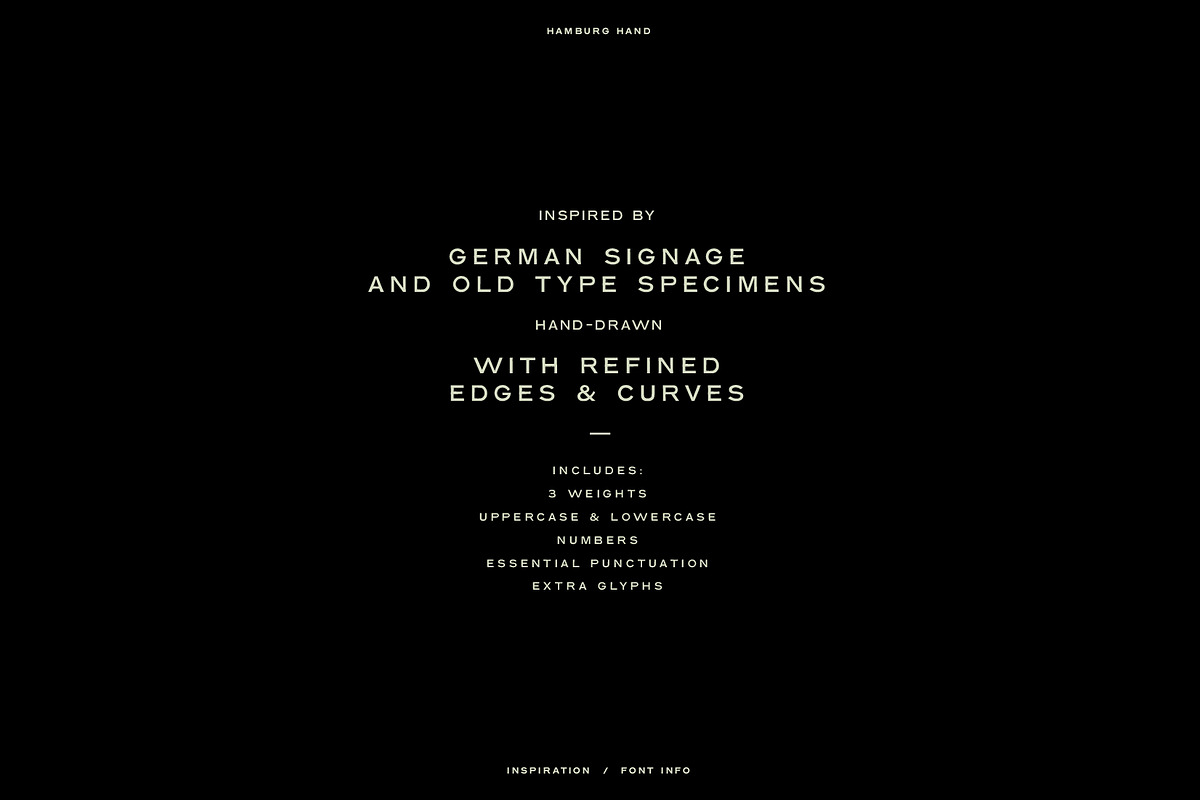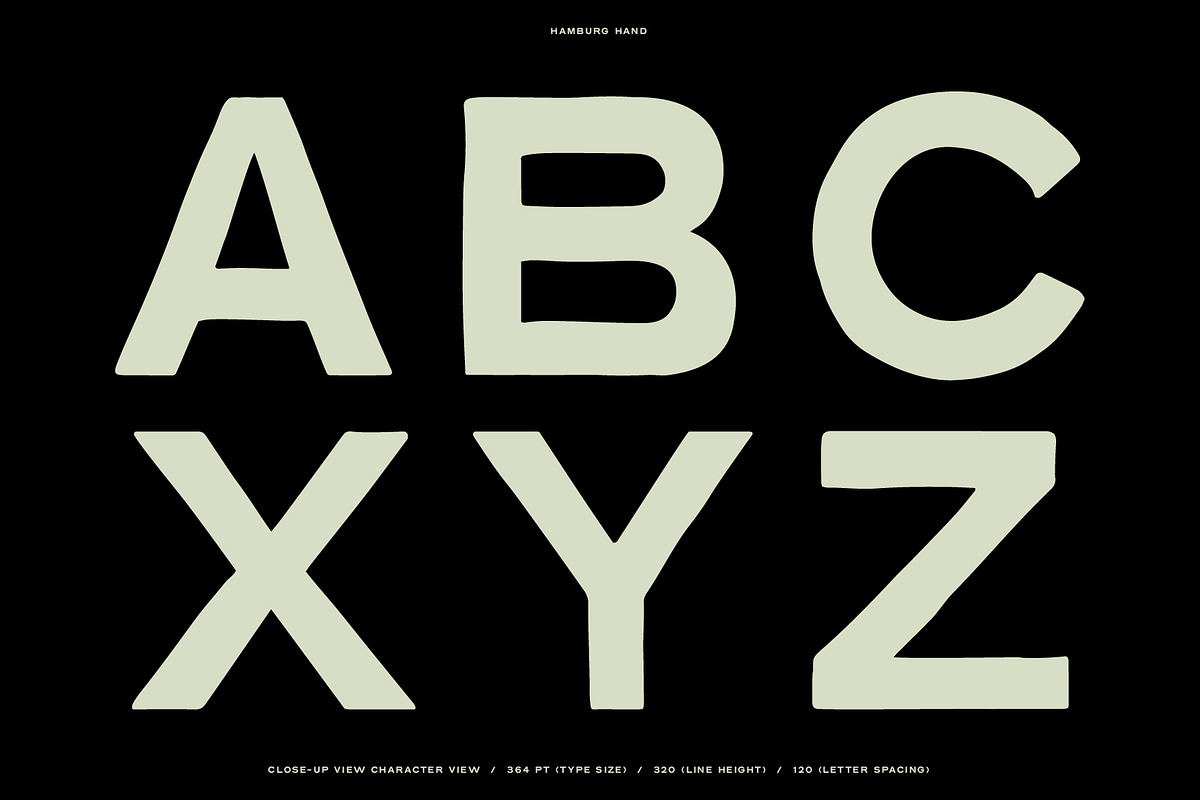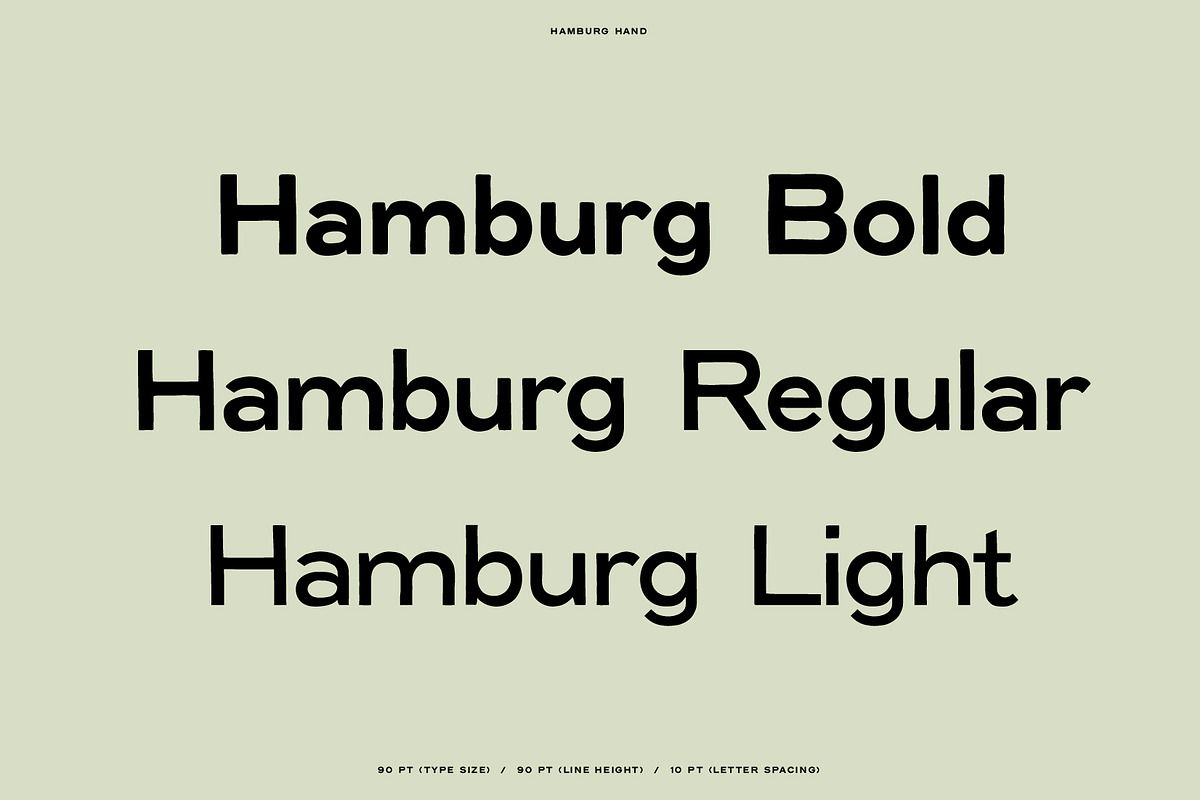
Introducing Hamburg Hand. A hand-drawn font inspired by German signage and various old type specimens.
- Just updated with lowercase!
- Great for logos and unique layout displays!
Introducing Hamburg Hand. A hand-drawn font inspired by German signage and various old type specimens.